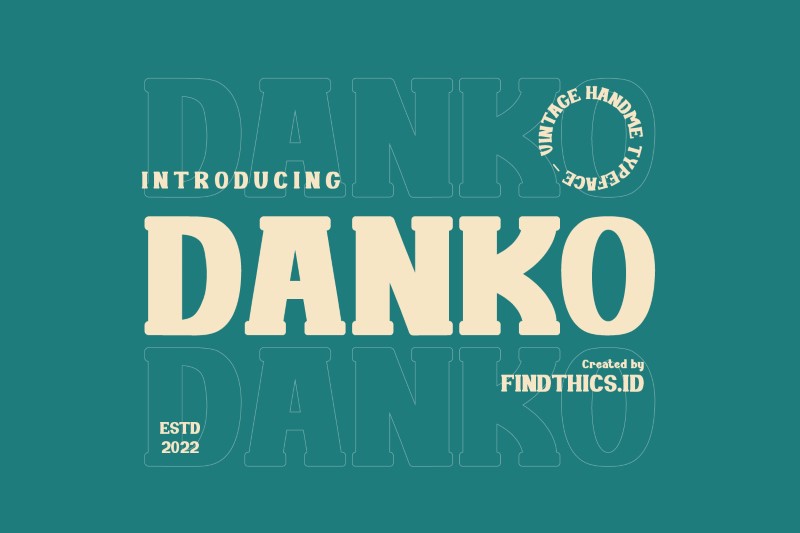
Danko Font
Designed by Findthics.id
About Danko
Introducing Danko Font.
Danko is a bold display serif font. Create from our talented font designer. The design of typeface will make your design more beautiful and inspiring. This font will suitable for any project, like branding, print template, logo and etc.